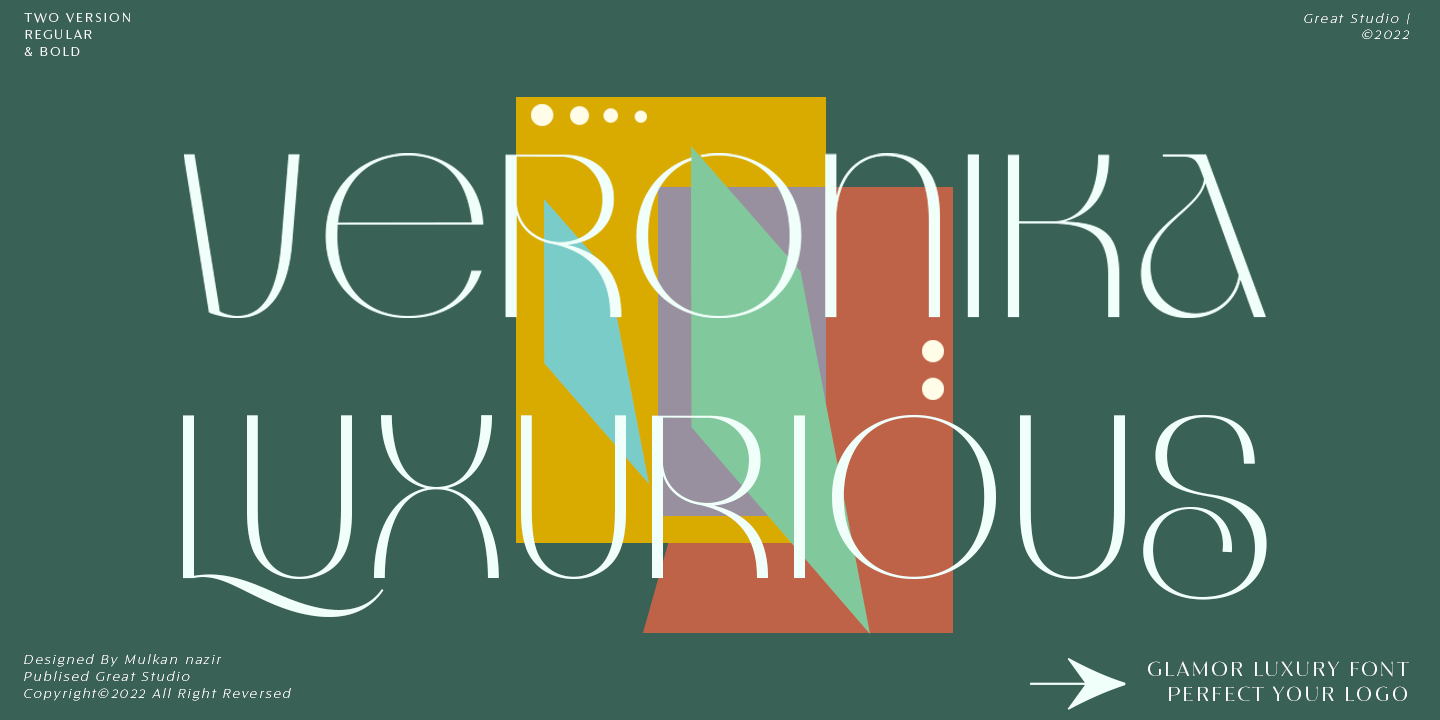
Veronika Luxurious
Designed by Mulkan Nazir, Veronika Luxurious is an art deco and display sans font family. This typeface has two styles and was published by Great Studio.
Veronika Luxurious is a Glamour Luxury typeface. with beautiful letters and a touch of elegant appearance. plant it firmly in a modern design. It is a careful collaboration between beauty and function. Designed specifically for logo-themed projects, the font itself features many alternative and binding options, perfect for creating elegant, chic lifestyle designs, such as logos, titles, branding, web design and book designs.
Veronika Luxurious displays both uppercase and lowercase letters, supports Latin-based languages. It holds two weights, Regular and Bold. each offers something different and they are all made to work together in harmony.
Foundry Great Studio
Styles Art Deco, Display Sans
Designer Mulkan Nazir